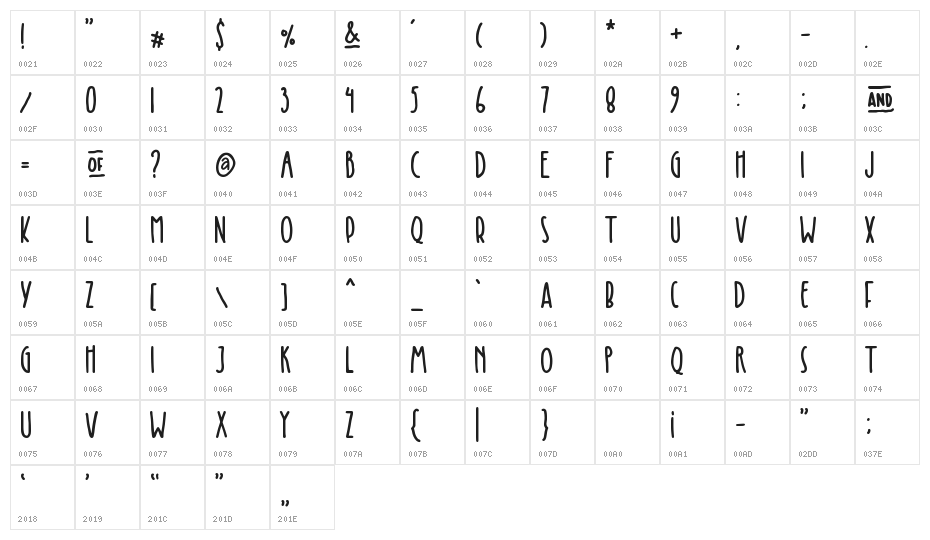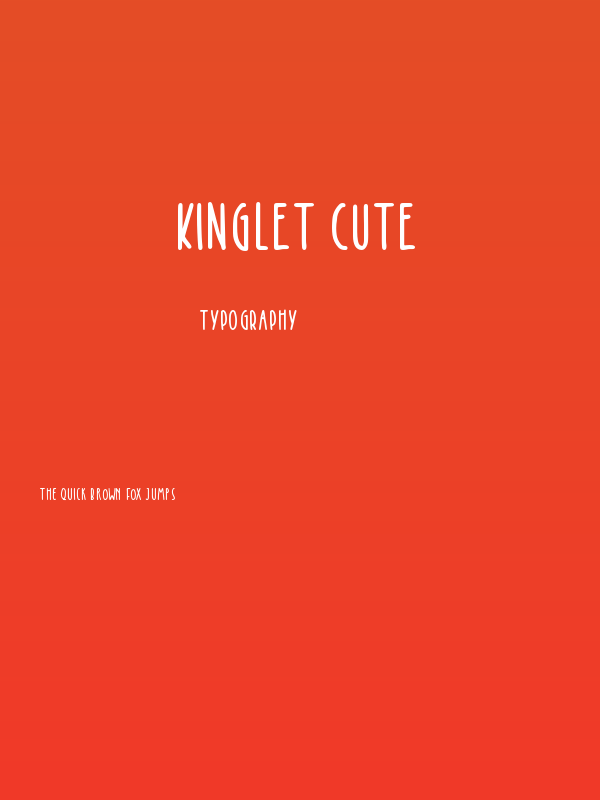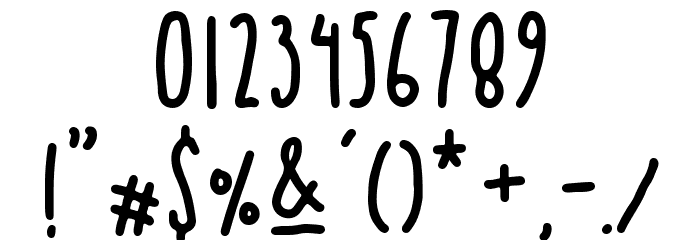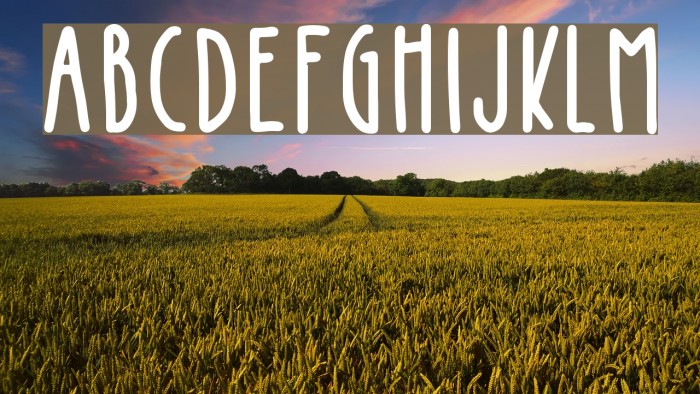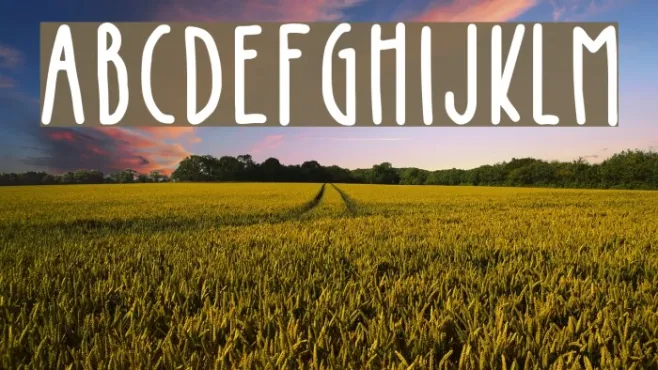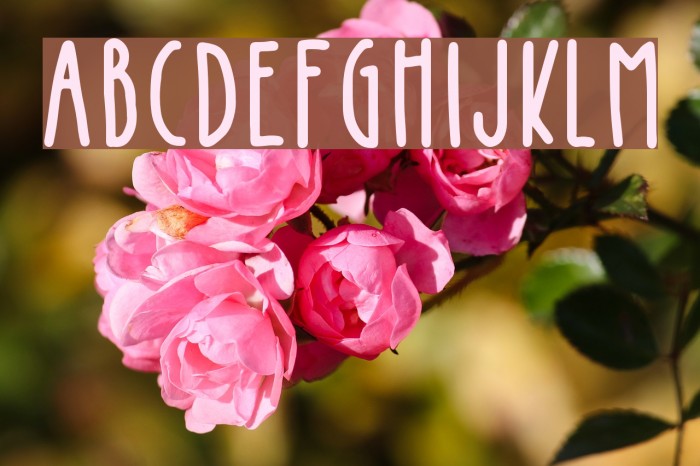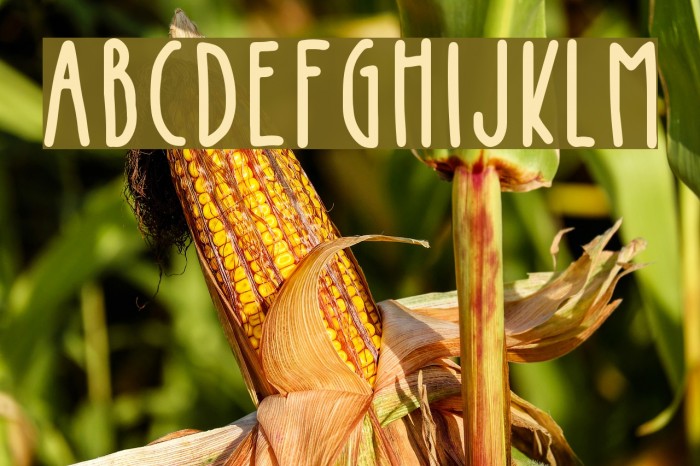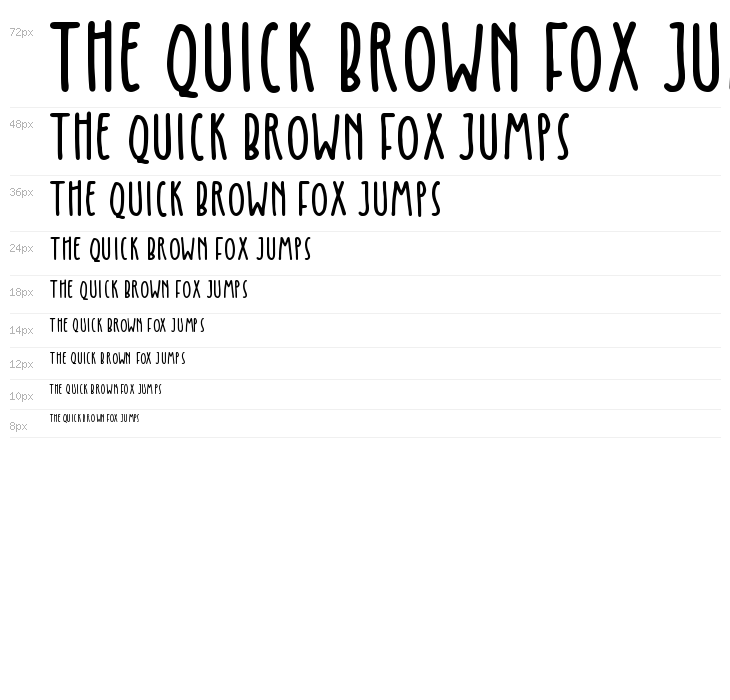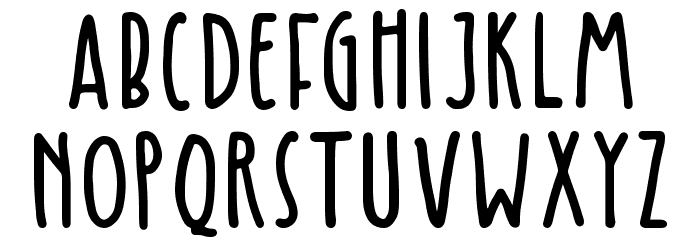
Kinglet Cute Font
Kinglet Cute Description
This playful and whimsical font features a handwritten style with a casual and friendly appearance. The characters are slightly elongated with rounded edges, giving it a soft and approachable feel. The strokes are consistent in width, providing a uniform look across all characters. The font includes both uppercase and lowercase letters, numbers, and a variety of special characters, making it versatile for different uses. Its informal style is perfect for projects that require a personal touch or a fun, lighthearted vibe.
| Use Case | Logos, Headlines, Informal Text |
| Proposed Projects | Ideal for children's books, greeting cards, playful branding, and social media graphics. |